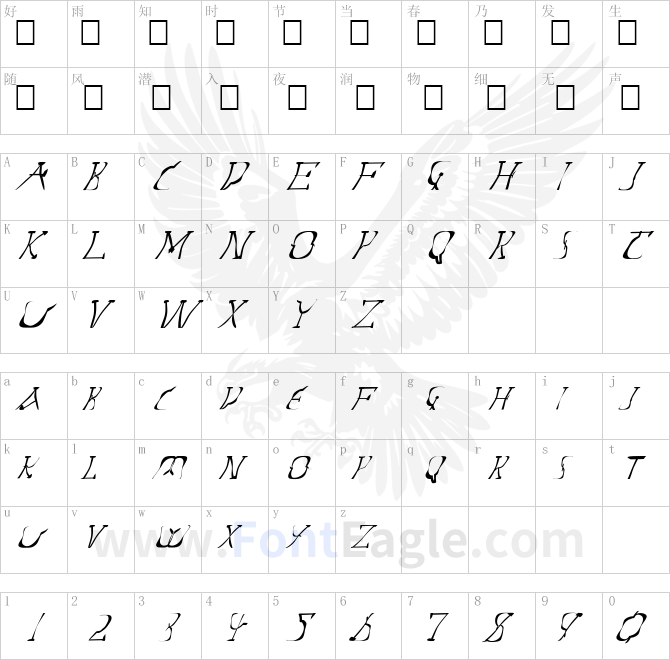
FZ WARPED 14 ITALIC Normal.ttf Font Image
- Font name:FZ WARPED 14 ITALIC
- Font Subfamily ID:FZ WARPED 14 ITALIC
- Font Full Name:FZ WARPED 14 ITALIC
- Postscript:FZ-WARPED14ITALIC
FZ WARPED 14 ITALIC Normal.ttf Characters Sample